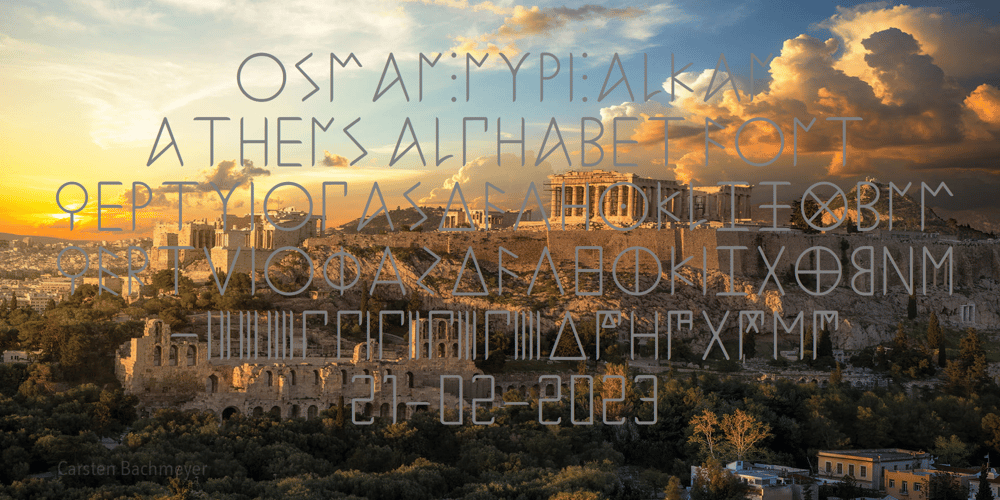
Ongunkan Greek Athen
Ongunkan Greek Athen font
Ongunkan Greek Athen Font Family was designed by Osman Nuri ALKAN and published by Runic World Tamgacı. Ongunkan Greek Athen contains 1 styles and family package options. It is the athenian version of the ancient Greek script. Ancient Greek numerals are included. It’s not Unicode, it’s a Latin based font.